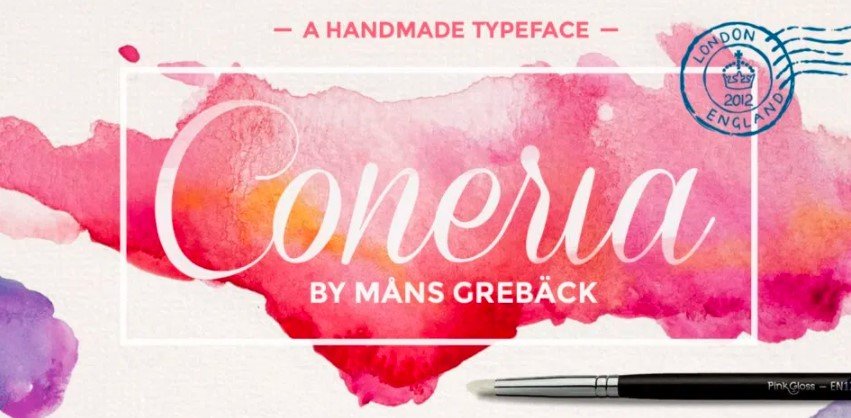
We are sharing the Coneria Script Font that is a modern calligraphic typeface that has lots of popularity and fame among millions of designers. The font was shared by well-known designer Mas Greback who is a Swedish designer. Who designed many popular typefaces like Old School, Amertha, and much more others.
The typeface will help you a lot in creating more and more beautiful images, pictures, illustration and other graphic works. Also, it has sufficient ability to work in web designs also.
The Coneria Script Font is the famous and amazing typeface which was product of the Mans Greback.